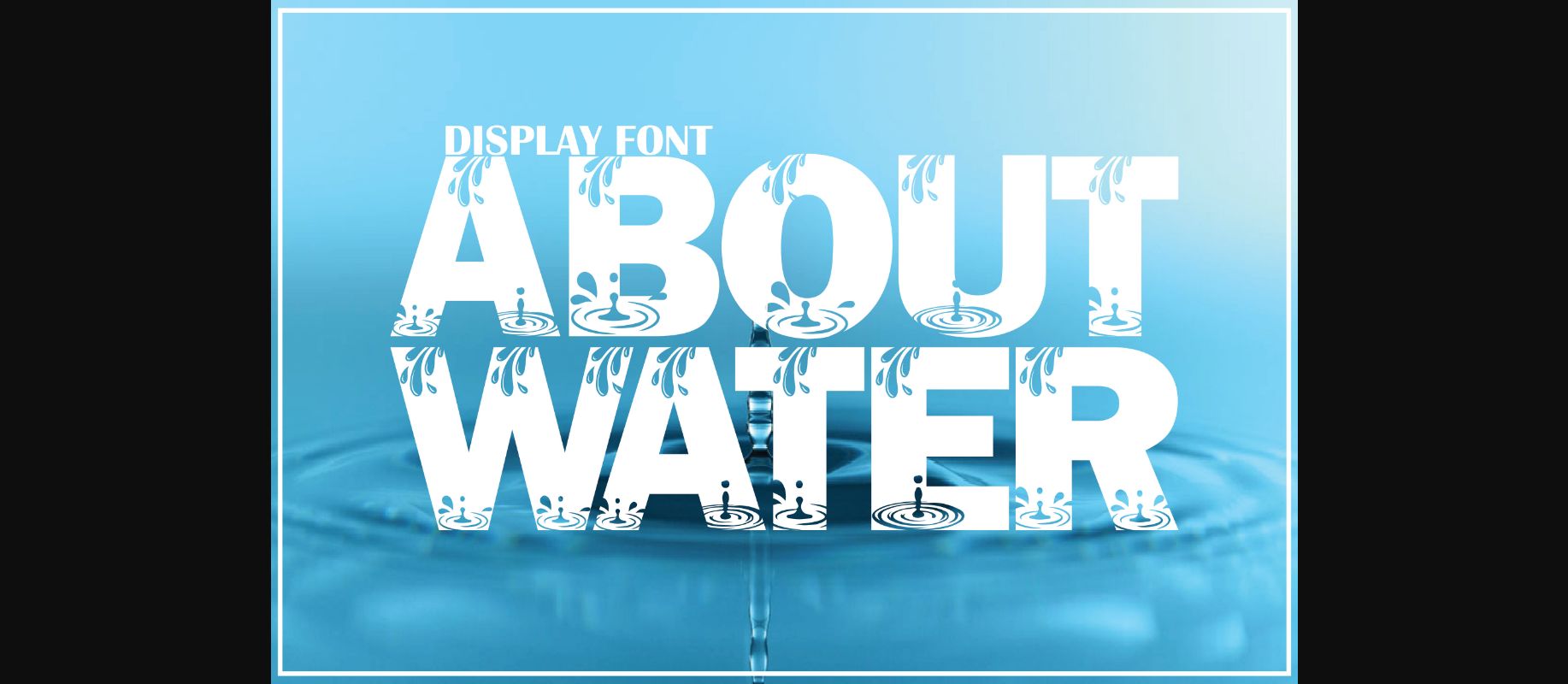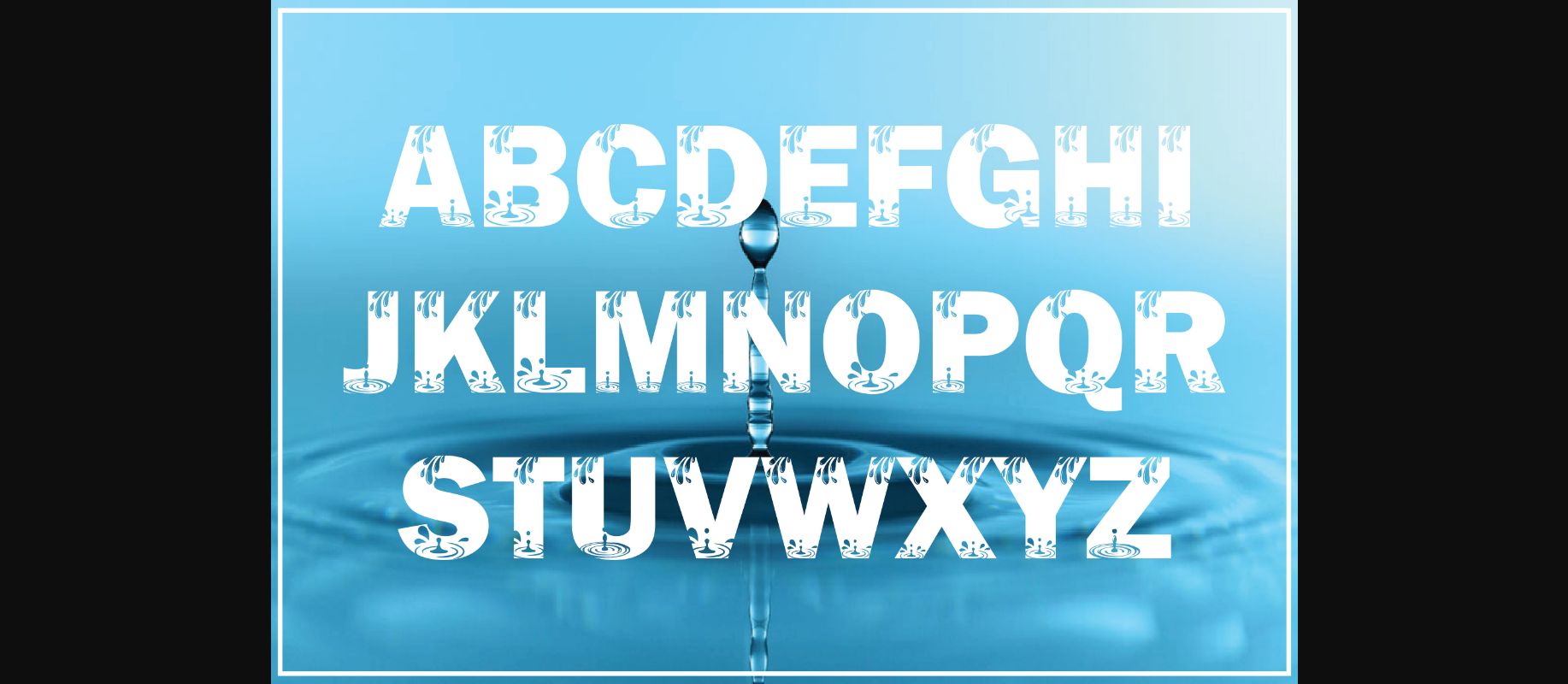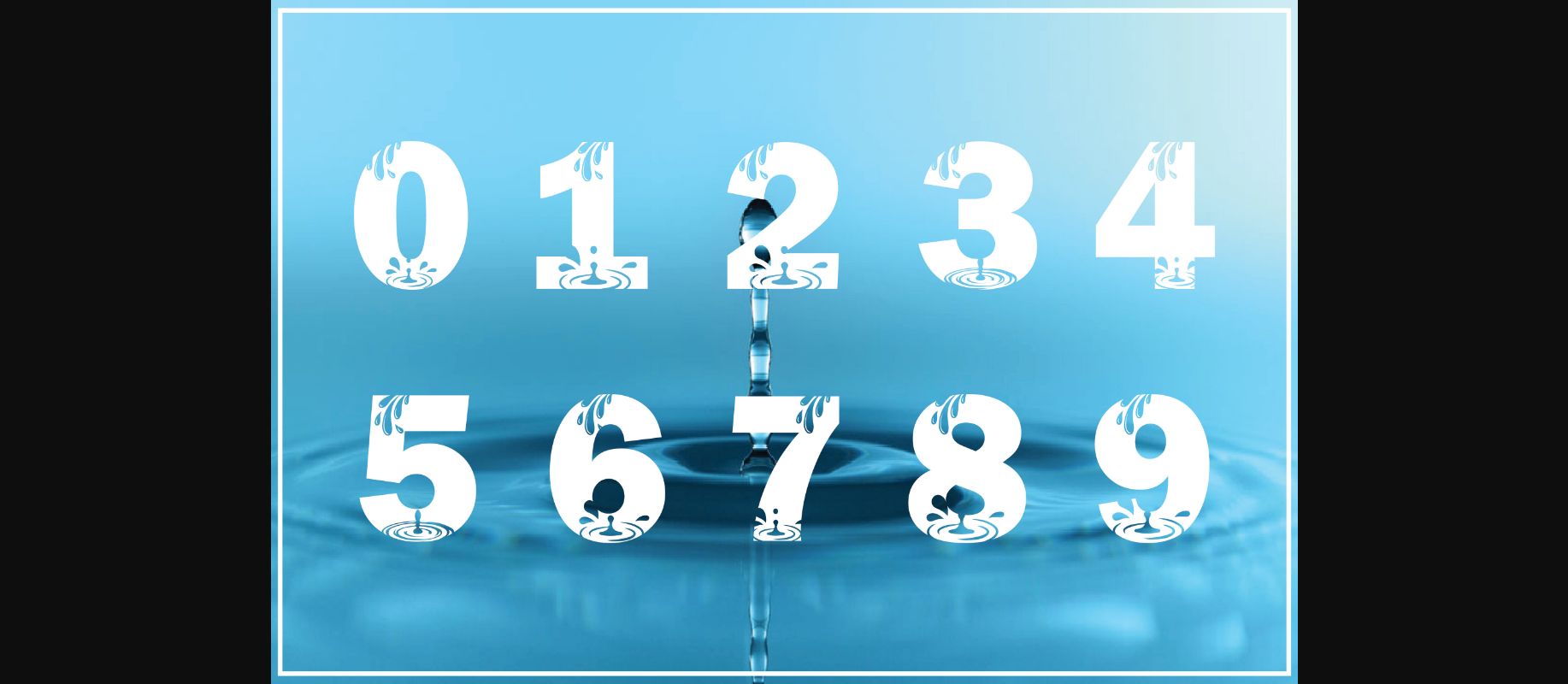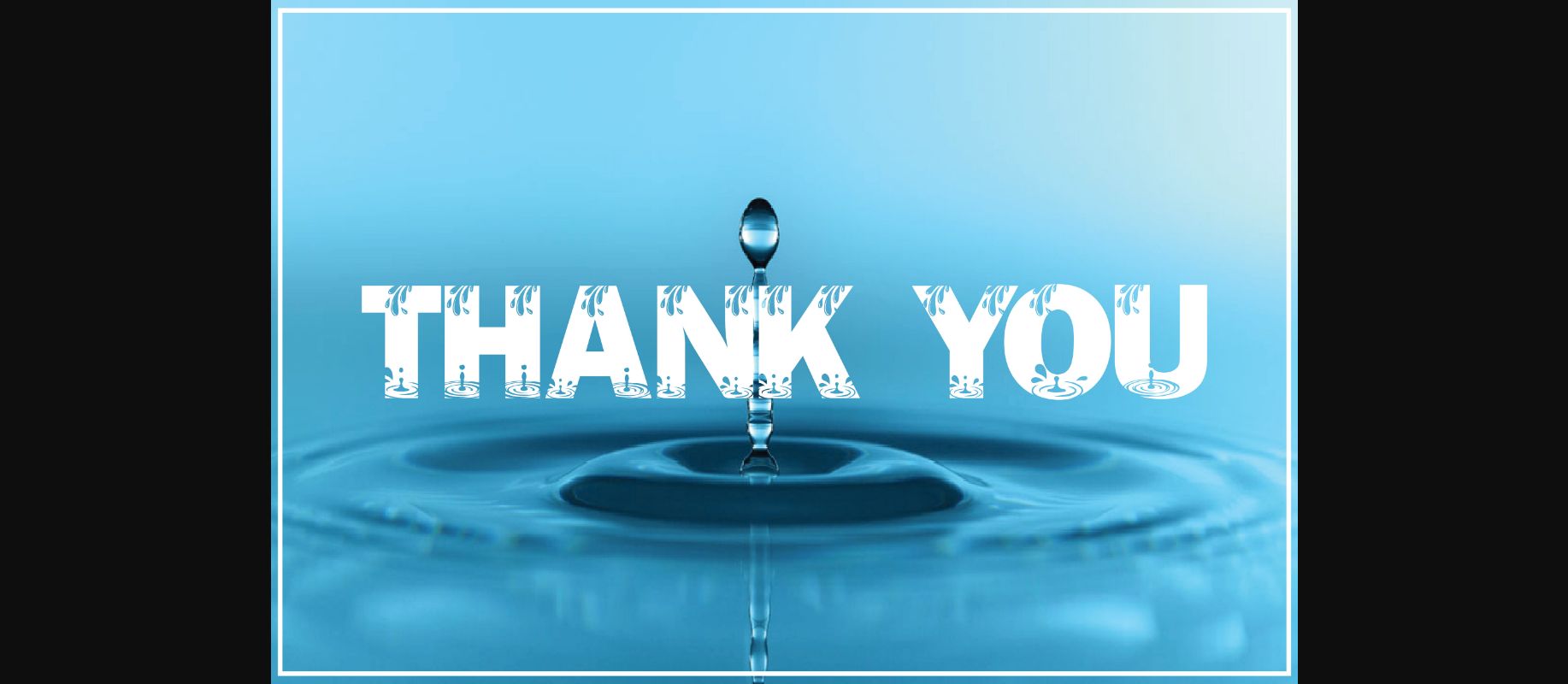
About Water is a dramatic decorative font. It is perfectly suitable for any design or crafty idea! Add it confidently to your projects and you will love the results!